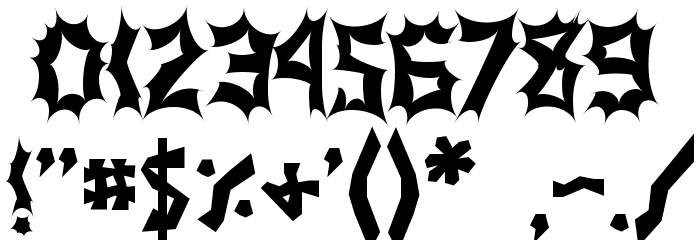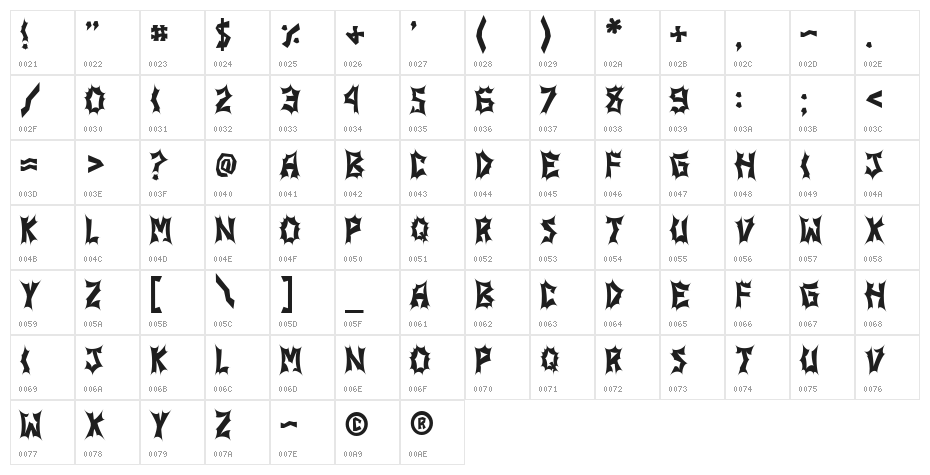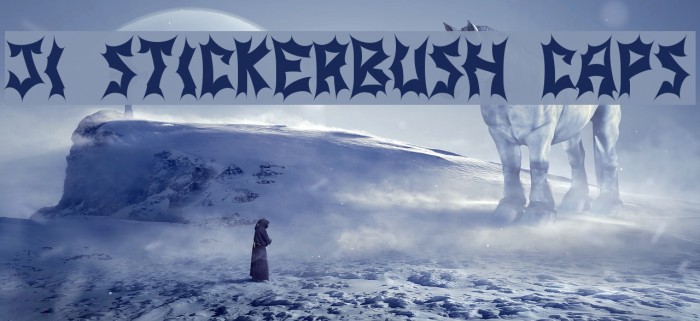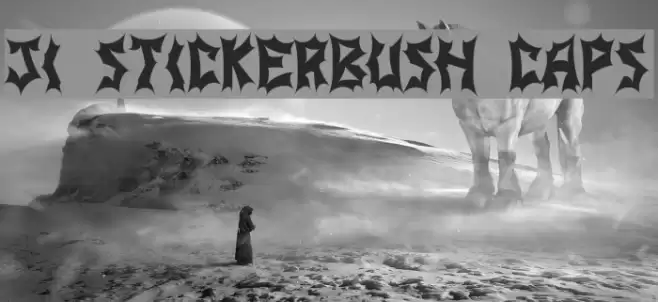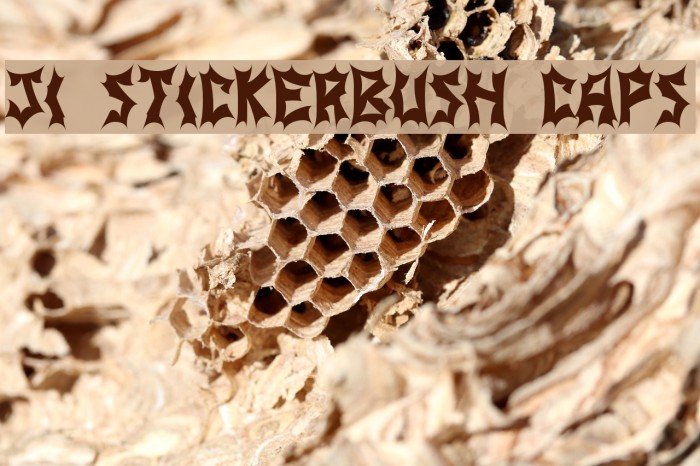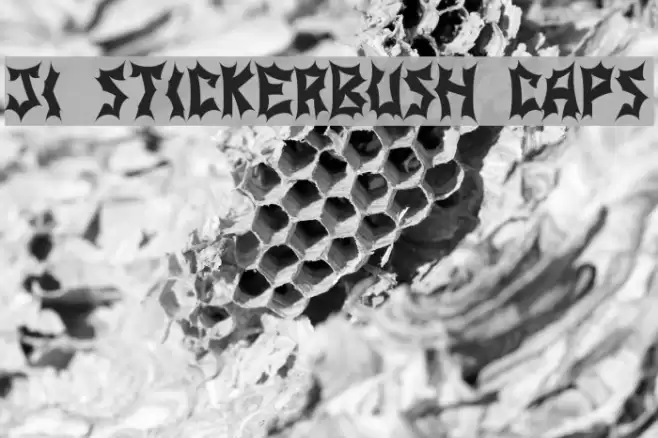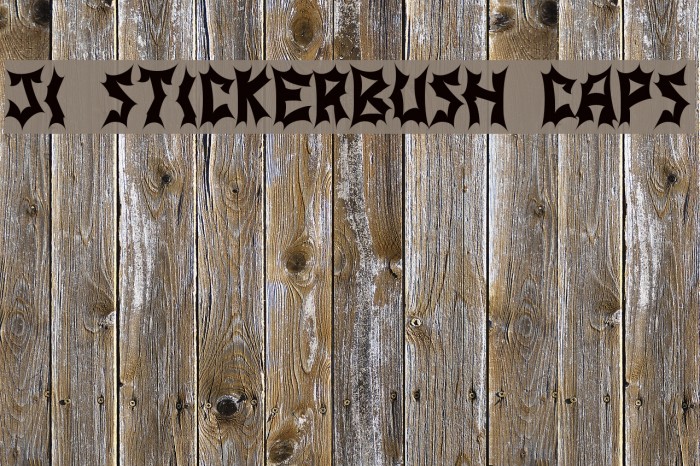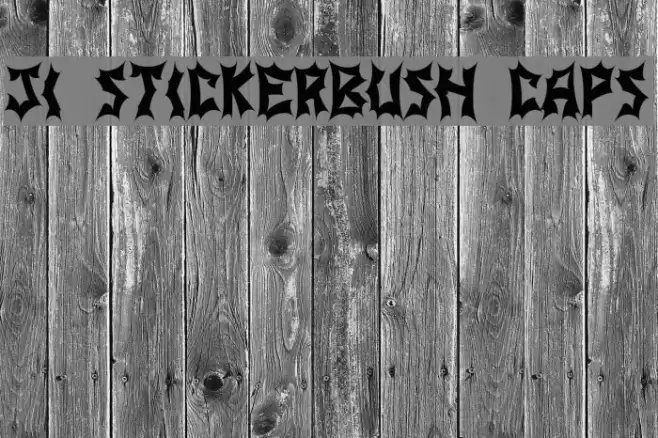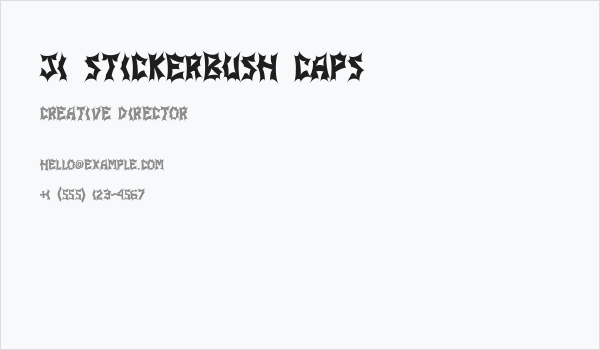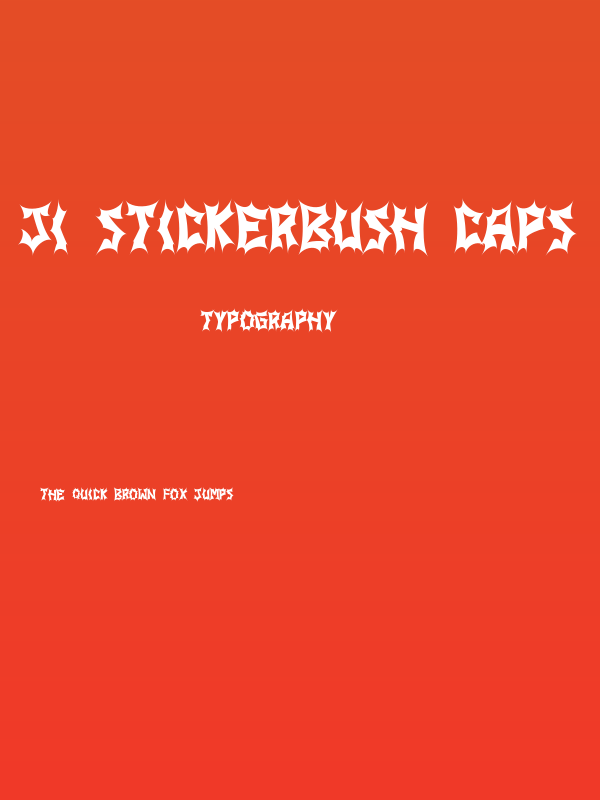
JI Stickerbush Caps Font
JI Stickerbush Caps Description
This font features a bold and edgy design with sharp, thorn-like extensions on each character, giving it a rugged and aggressive appearance. The uppercase and lowercase letters maintain a consistent style, with jagged edges and pointed serifs that evoke a sense of danger and intensity. The numbers and special characters follow the same aesthetic, ensuring a cohesive look across all glyphs. This font is highly decorative and stands out due to its unique and striking visual impact.
| Proposed Projects | Ideal for projects that require a bold and eye-catching design, such as band posters, video game titles, or edgy branding materials. |